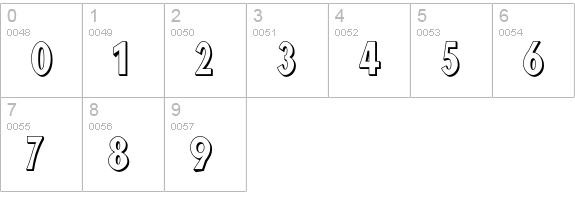
Blink 3D Font Details
Introducing Blink 3D, a mesmerizing font that will bring your designs to life! With its unique three-dimensional effect, Blink 3D font adds depth, dimension, and a touch of magic to any project. This font is perfect for posters, logos, branding, and any other design where you want to make a bold statement. But what makes Blink 3D font even more amazing is that it's completely free! Yes, you read that right - this stunning font can be yours without spending a dime. Whether you're a professional designer or a hobbyist, Blink 3D font is readily available for download at FontsMarket.com. Say goodbye to expensive font licenses and hello to limitless creativity. With Blink 3D font, you'll be able to captivate your audience with its eye-catching visual appeal. Each letter has been meticulously crafted to create a sense of movement and dynamism. The 3D effect gives your designs a realistic, almost tangible quality, making them truly stand out from the crowd. Not only does Blink 3D font look incredible, but it's also incredibly versatile. Its bold, modern design works well with a variety of design styles, from futuristic and tech-inspired to edgy and urban. Whatever your project may be, Blink 3D font will add that extra touch of flair and professionalism. So why wait? Don't miss out on the opportunity to enhance your designs with Blink 3D font. Download this extraordinary font for free at FontsMarket.com and let your creativity soar to new heights. Unleash the power of 3D typography and watch as your designs come to life before your very eyes. Blink 3D font - the perfect choice for those who dare to be different.